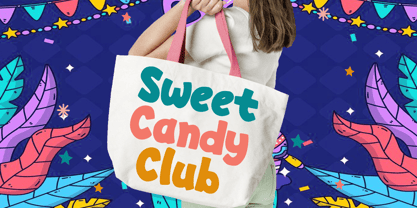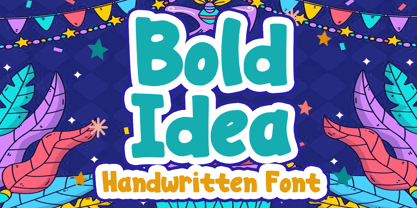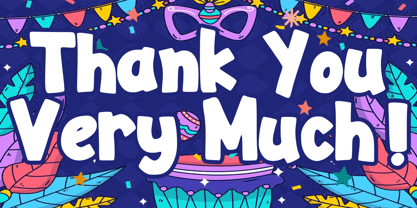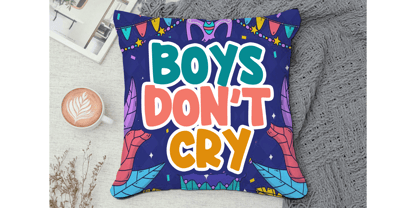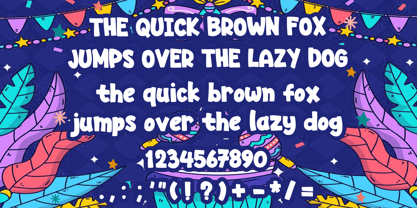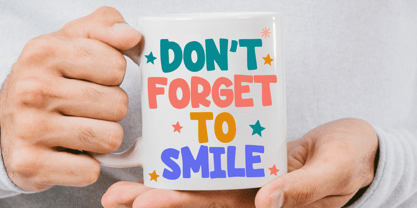
Bold Idea
by Mvmet
The Bold Idea Font Family was designed by Gabriel Valentinus and published by Mvmet. Bold Idea contains 1 styles. More about this family
Bold Idea is a vibrant and playful cartoon display font perfect for all your creative projects! Ideal for t-shirts, children's book designs, party invitations, greeting cards, notes, stickers, posters, and banners, this font adds a bold and fun touch to any design. Embrace the cheerful vibes it brings and unleash your creativity to craft fabulous designs that stand out. With its unique style, Bold Idea is sure to capture attention and bring joy to your audience!